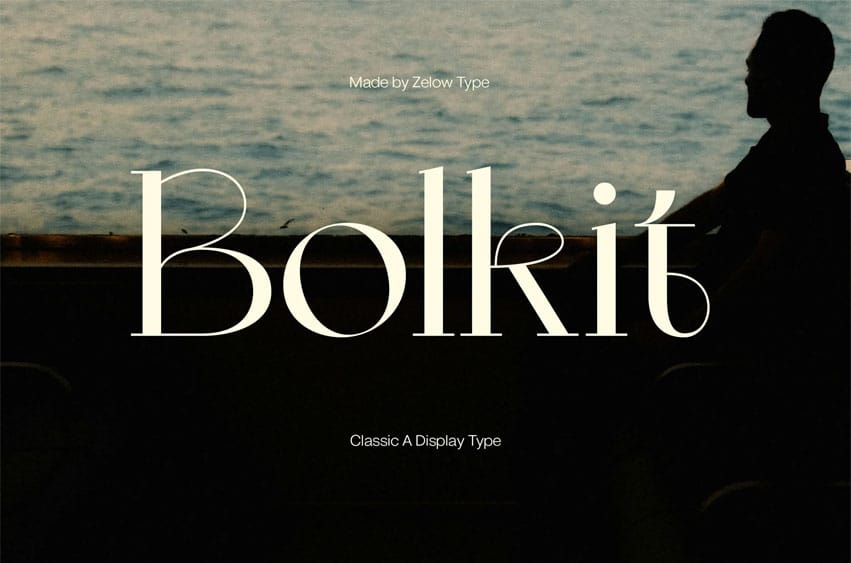
Bolkit Font is a versatile typeface that combines elegance with strength. It comes in two distinct styles: one featuring smooth and graceful curves, and the other with a firmer structure that conveys a strong character. Inspired by simplicity and timeless design, Bolkit brings both elegance and confidence into your creative projects.
Bolkit has features uppercase and lowercase letters, numbers, punctuation, 52 ligatures, 25 stylistic alternates, and a variety of symbols — giving you everything you need to create standout typography.
Bolkit also supports more than 60 Latin-based languages, including Western, Central, and Southeastern European. Whether for branding, editorial, logos, or modern design projects, Bolkit is designed to elevate your work with style.